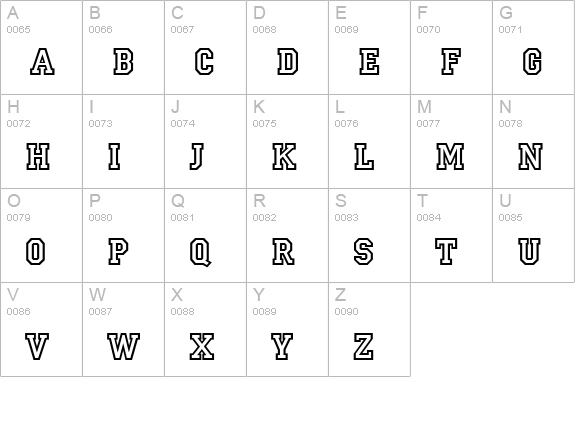
Campus MN Font Details
Introducing Campus MN font - a versatile and modern typeface perfect for all your design projects. With its clean lines and easy readability, Campus MN is ideal for branding, headlines, posters, and more. This font exudes a youthful and dynamic vibe, making it a great choice for projects aimed at a younger audience. What sets Campus MN apart is that it is available for free download at FontsMarket.com. Yes, you read that right - this high-quality font can be yours at no cost! So why wait? Elevate your designs with Campus MN and make a statement today.